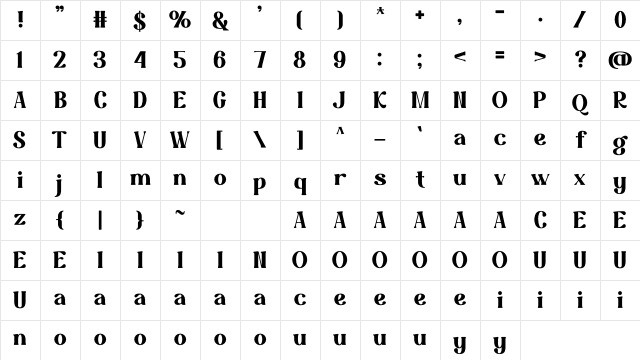
Sunflare Regular Free Font
Sunflare Regular
Foundry: IDEBARENG
Designer: IDEBARENG TEAM
Design Context for Sunflare
Sunflare is a composed and adaptable typeface that performs quietly and consistently across a wide range of design contexts.